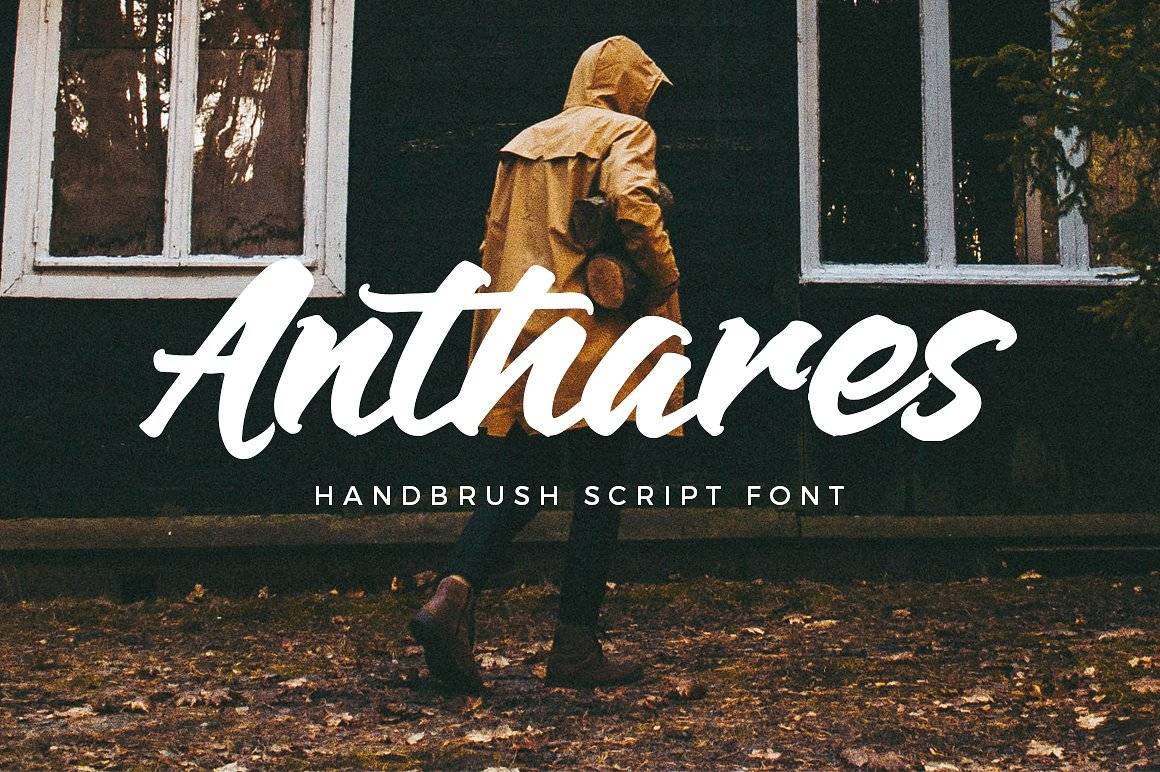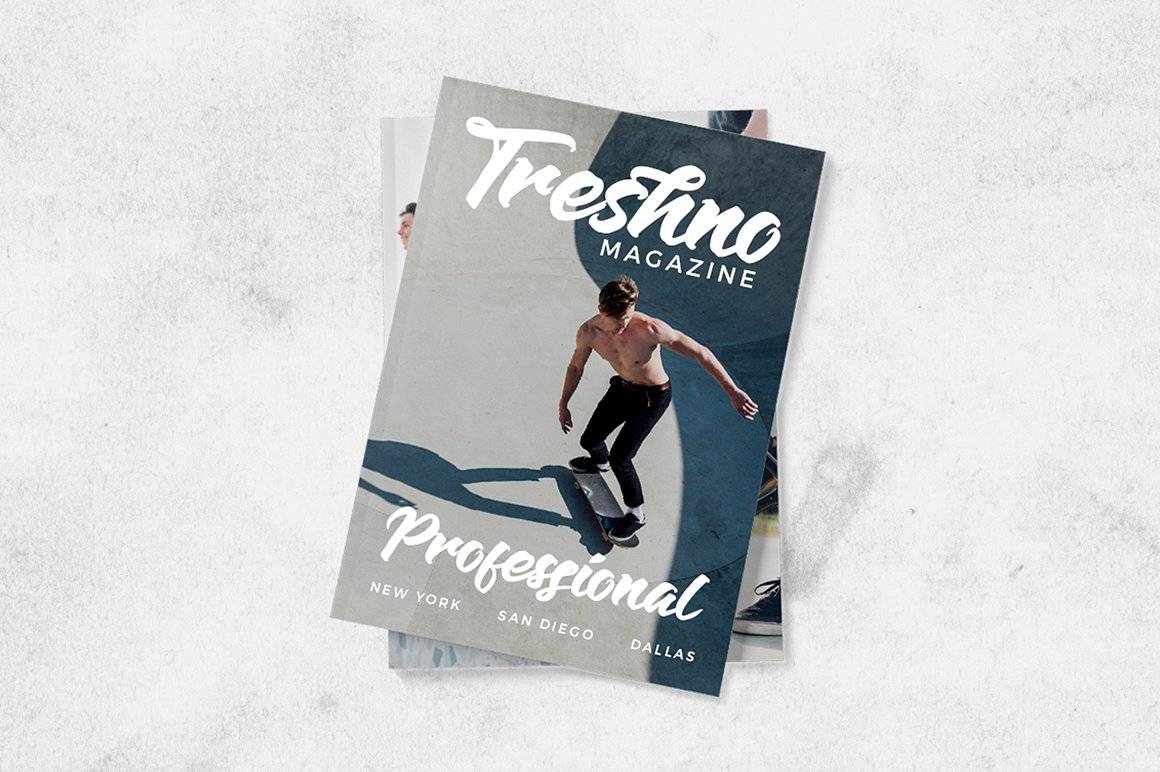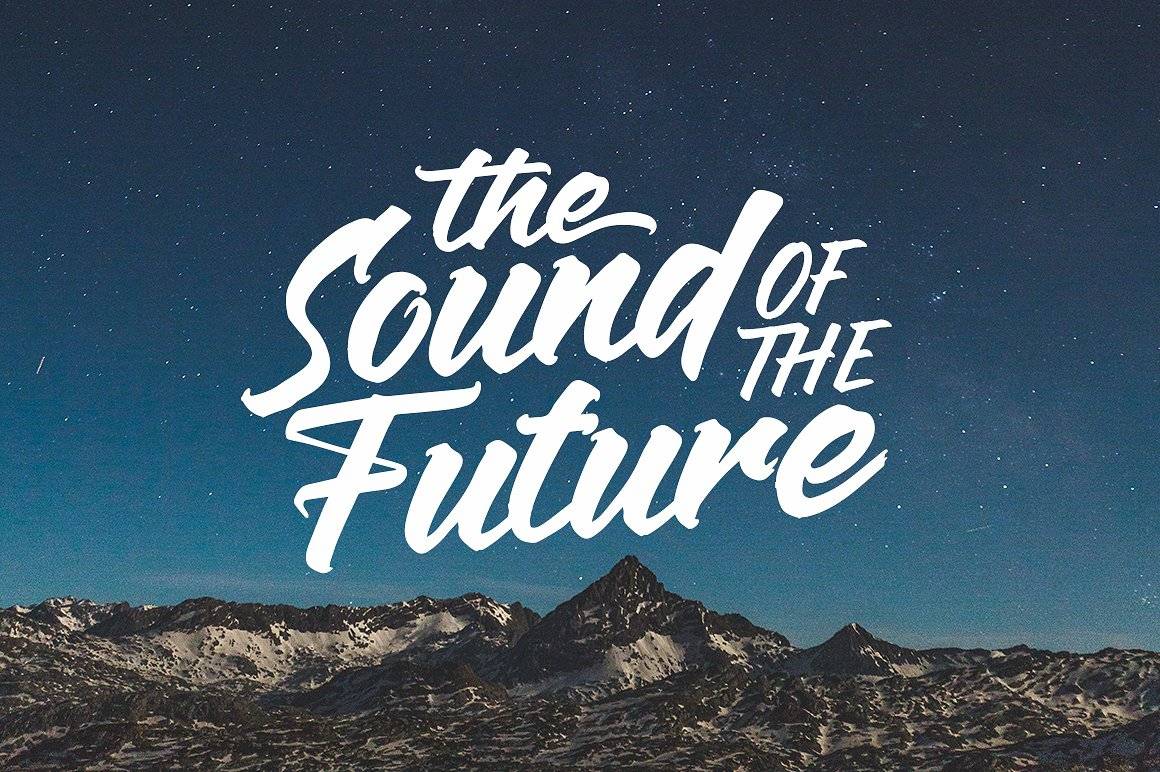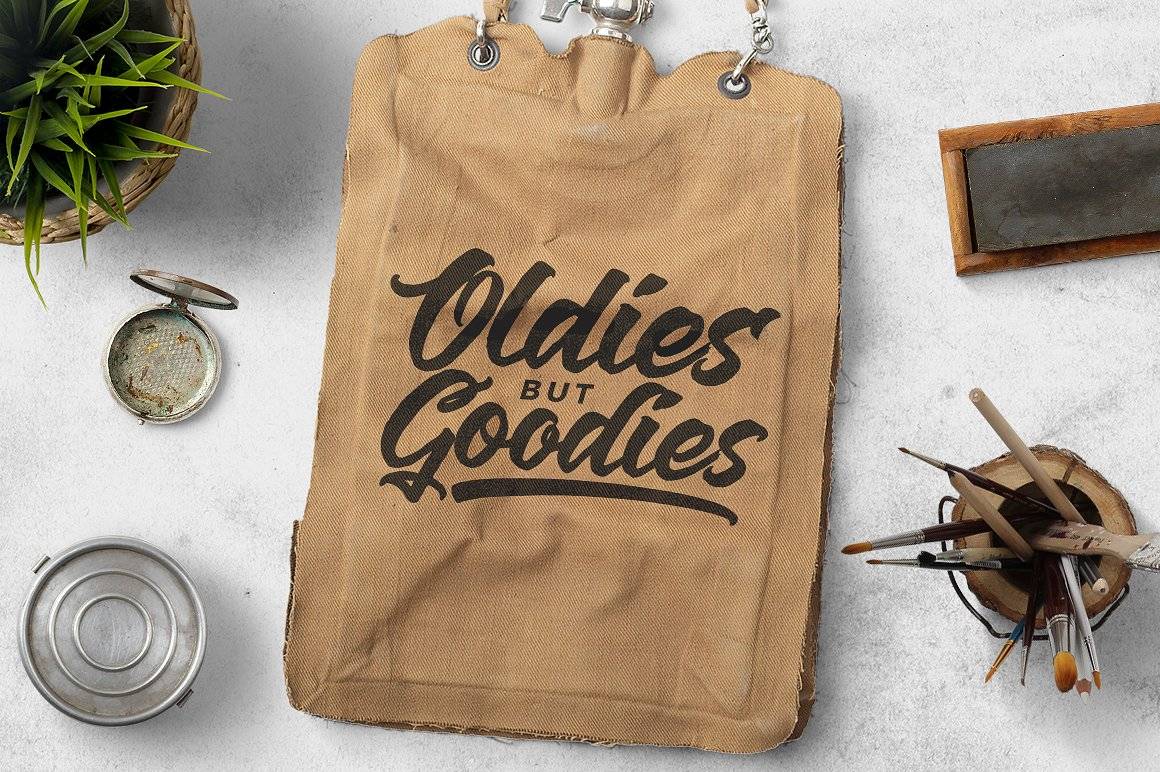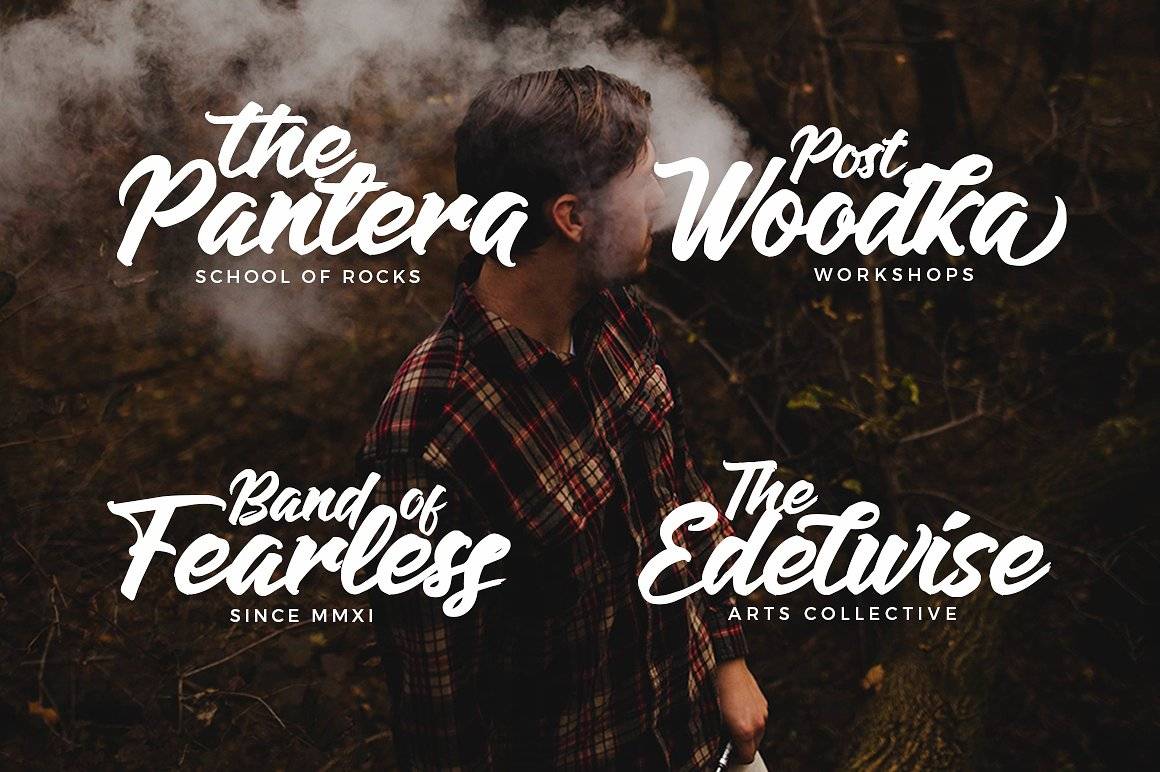
Anthares is a bold and dynamic script font with a hand-lettered, brushstroke style that blends personality and expressiveness. Its flowing, slightly slanted letterforms with moderate contrast give it a lively and energetic feel, making it perfect for eye-catching headlines, logos, and creative branding that seeks a stylish yet approachable look. This font works well in projects that want to convey creativity and warmth, from fashion to lifestyle and artistic endeavors.
Anthares Font
About Anthares Font
| Font family | Anthares Font |
| Designer | Aliv Pandu & Hamam Jauhari |